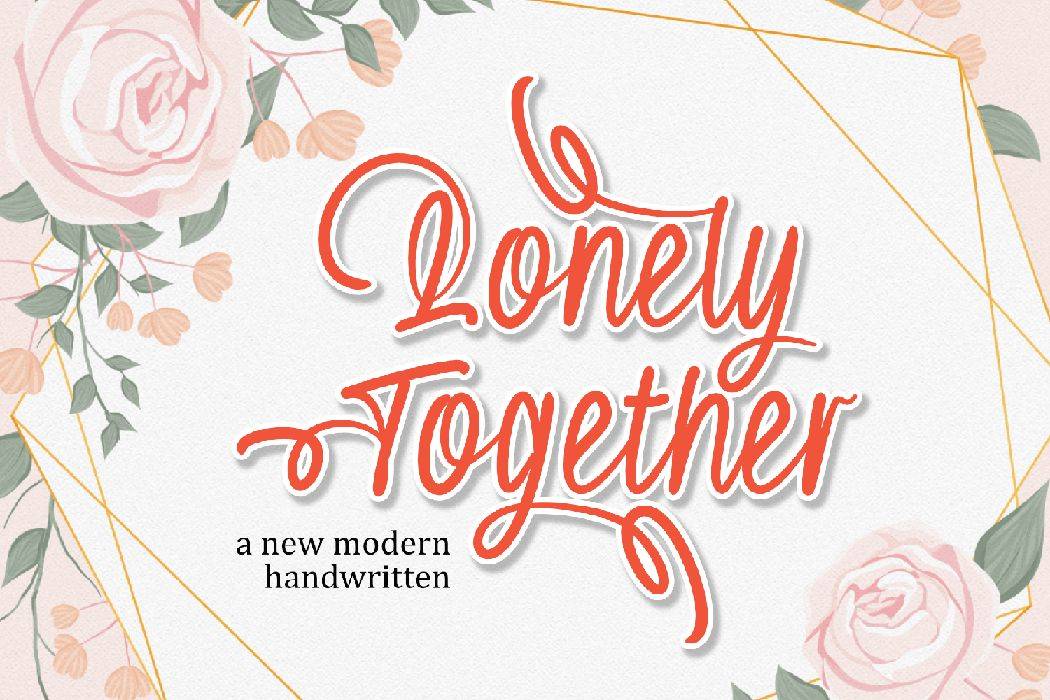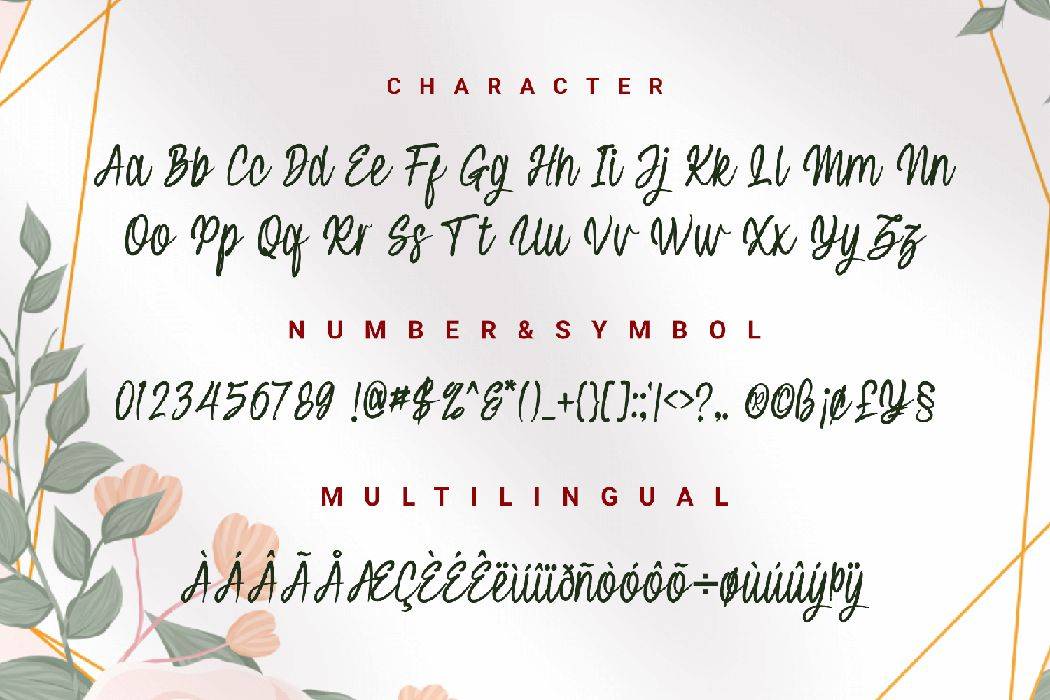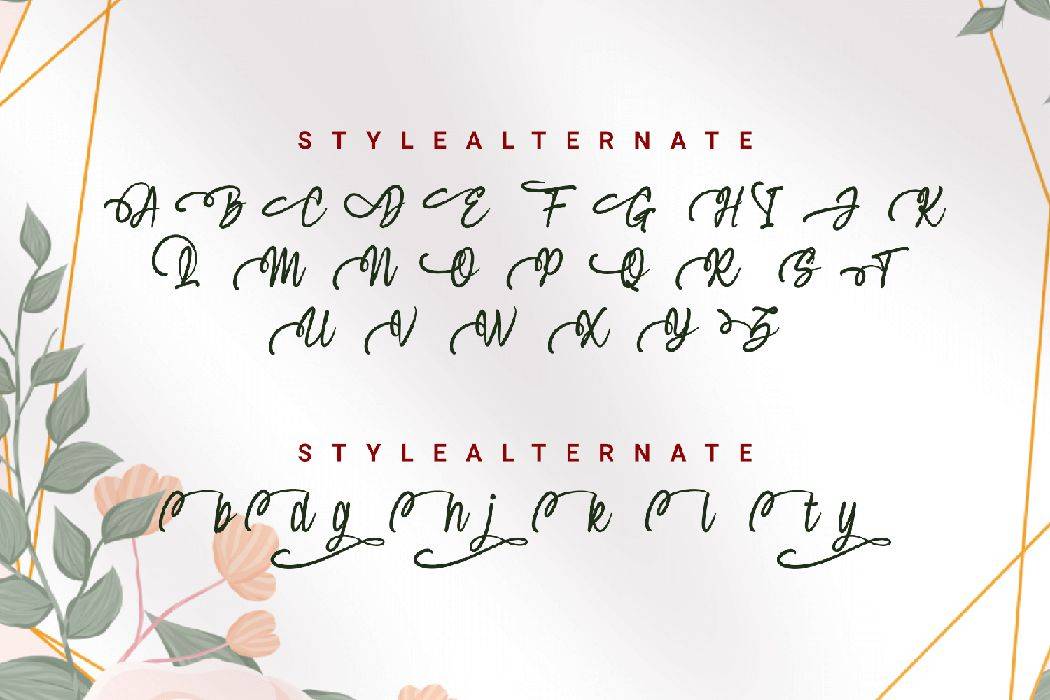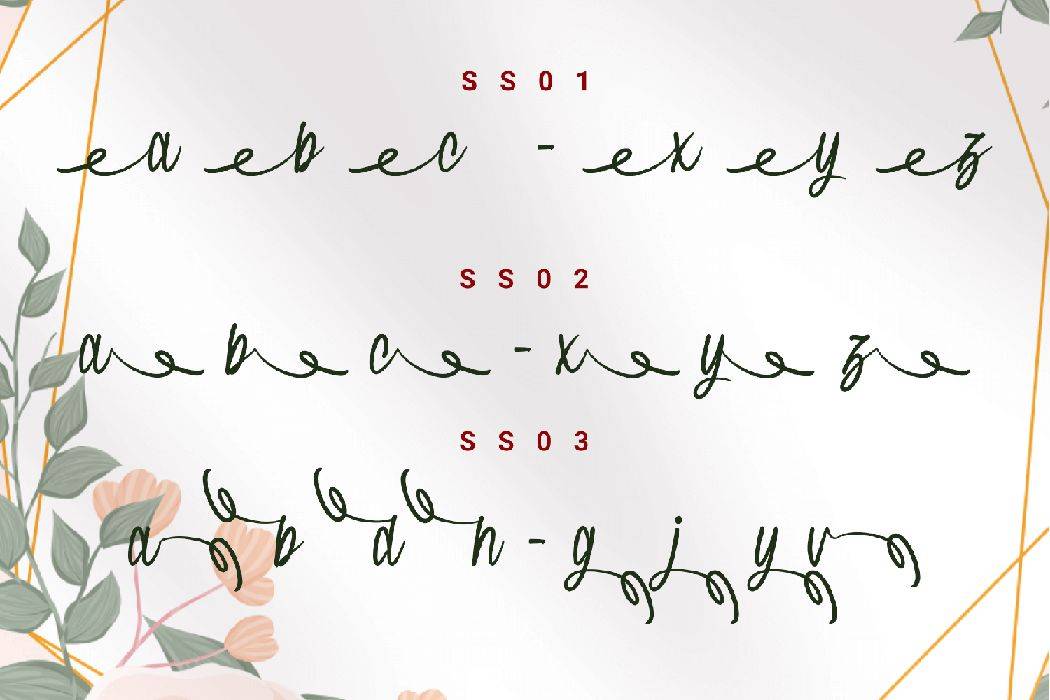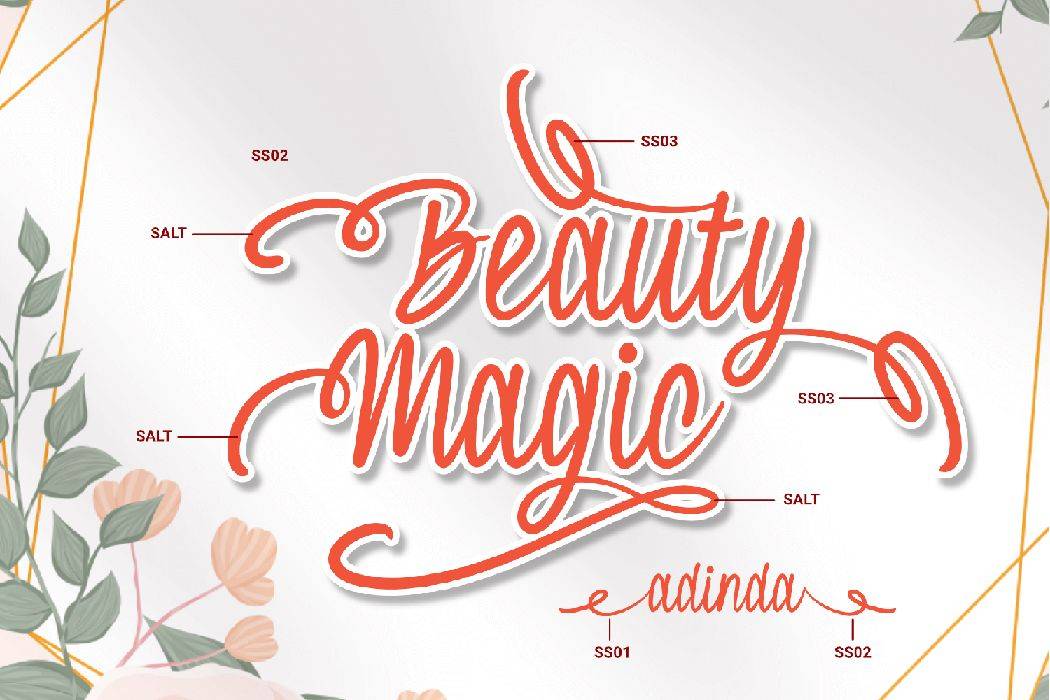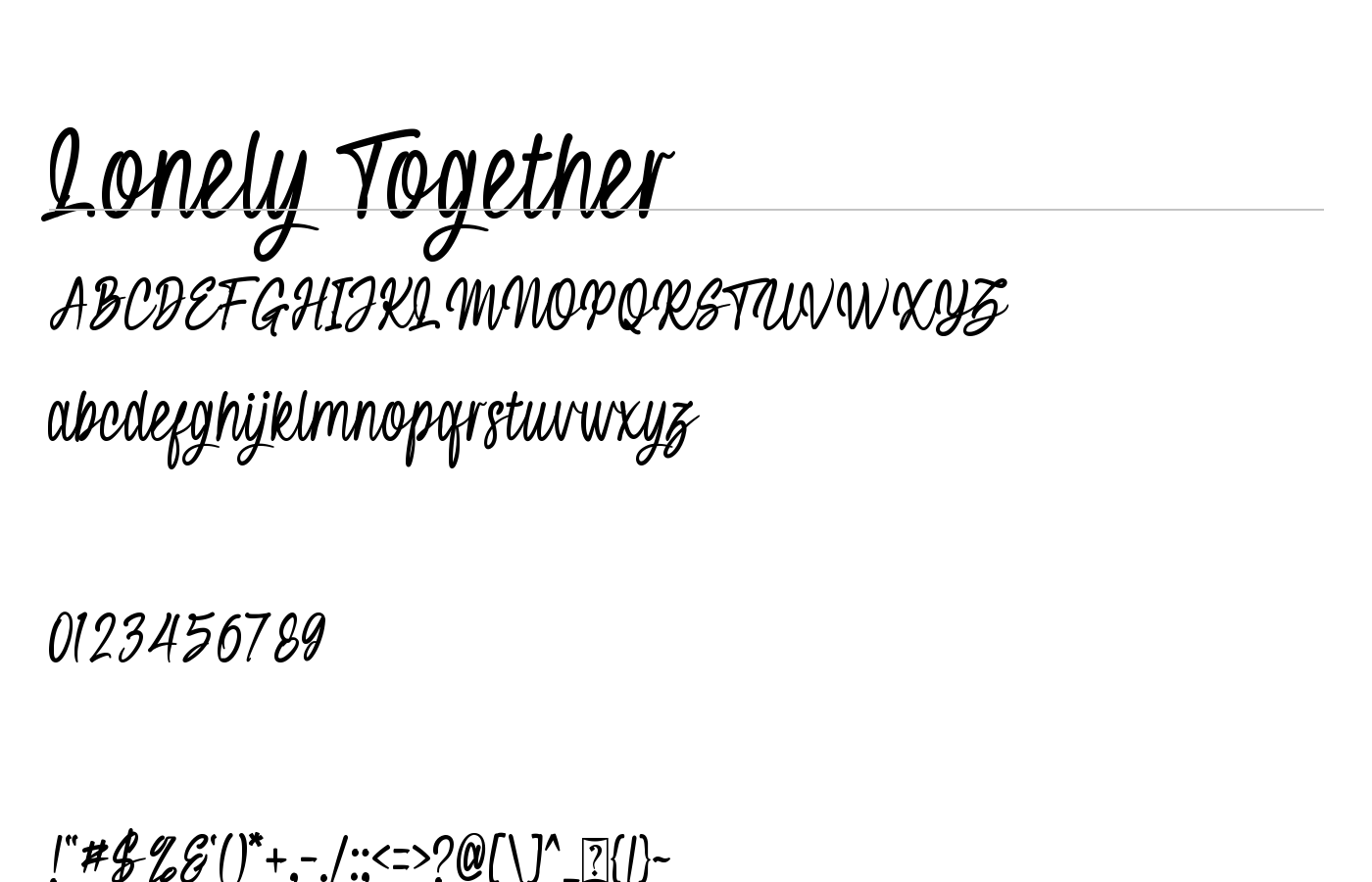
Lonely Together is a lively, handwritten script font that combines a casual, personal feel with a touch of elegance. Its fluid strokes and natural flow make it ideal for creative branding, invitations, and social media where a warm, approachable, yet stylish vibe is desired. This font works best for headlines and decorative text that aim to convey friendliness and authenticity.
| Font family | Lonely Together Font |
| Designer | Toni Dzulham |